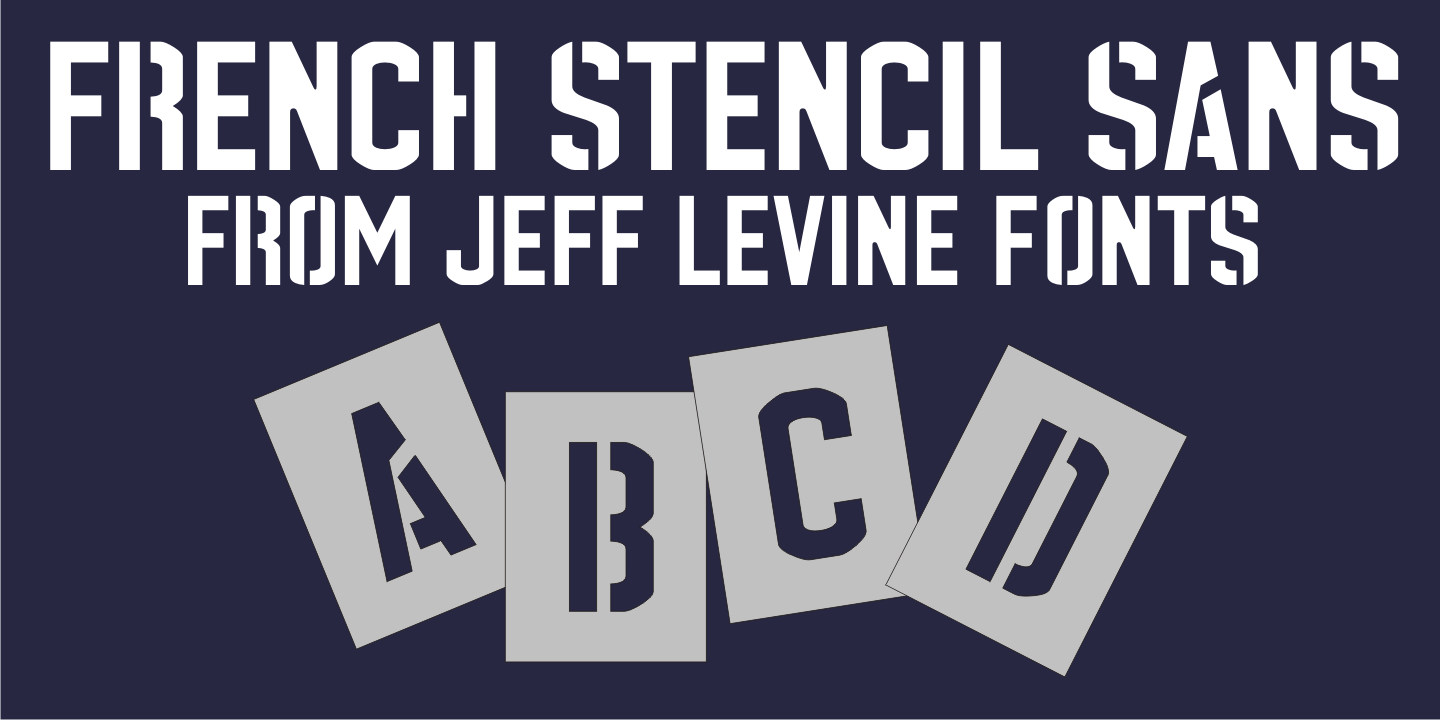
French Stencil Sans
French Stencil Sans JNL is another typeface based on vintage French tin/zinc stencils.
Slightly rounded corners and a 'hand-cut' look add an interesting and charming variation that breaks away from the 'standard' design of other metal stencil sets.
French Stencil Sans JNL Regular by Jeff Levine Fonts